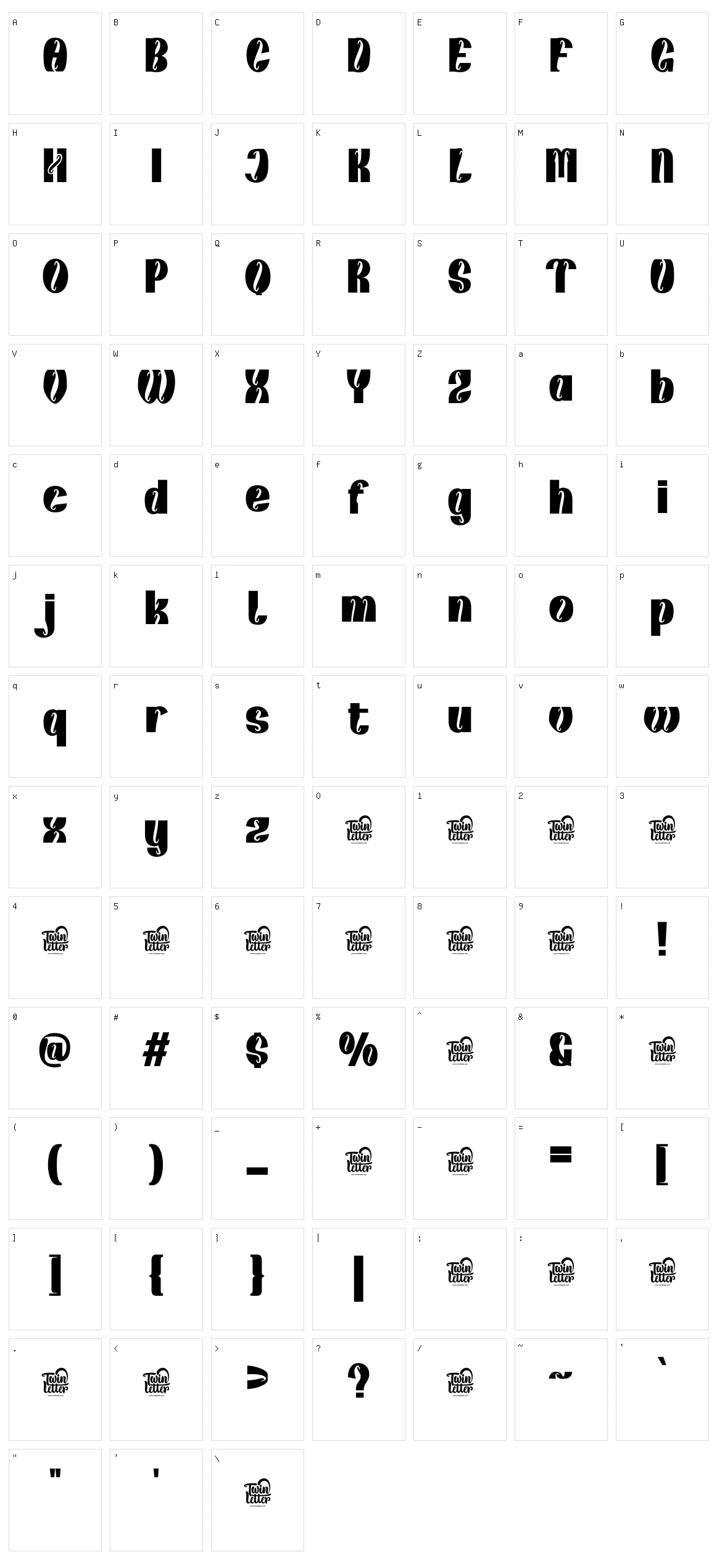
The free font Kunhety is carefully designed by twinletter, showcasing a thoughtful balance of creativity and usability and falls under the Groovy font style. When you download the ZIP file, it contains only 61.99 KB of font files, making it lightweight and quick to download. Please review the license details below to understand permitted usage and distribution rights. If license information is not available, we recommend using this font for personal projects only or contacting the author directly for commercial usage permissions.